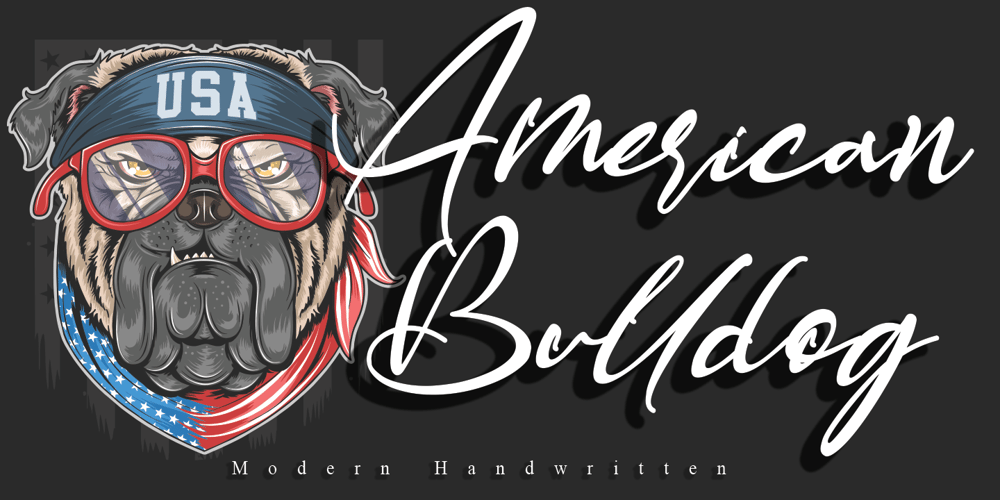
American Bulldog Font Family was designed by Thomas Aradea and published by Letterara. American Bulldog contains 2 styles and family package options. American Bulldog is a magical handwritten font carefully created with a touch of elegance. This enchanting font will turn any creative idea into a true standout. Get creative with its unique look, and use it to brighten up any crafting project.